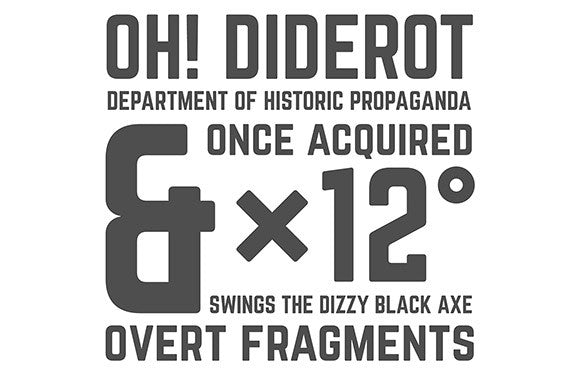
Free Norwester font
Download and enjoy this free norwester font. Cool typeface to showcase your designs in a modern way. Freebies Bug has created this amazing and beautiful font. Showcase your designs like a graphic design pro by adding a new touch with this cool font.